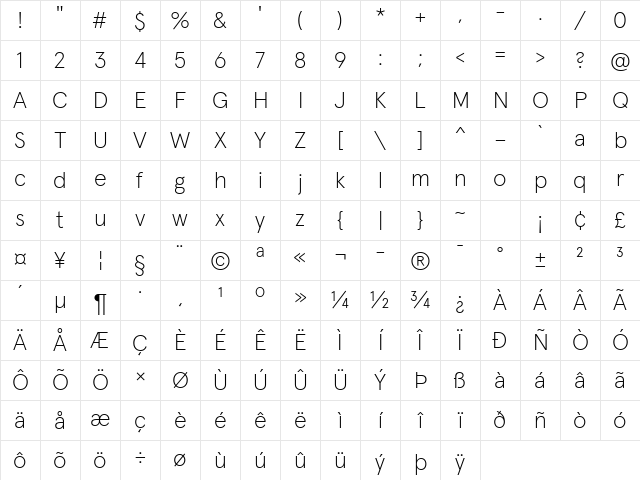
Apercu Pro ExtraLight
Style: ExtraLight
Foundry: Colophon Foundry
Designer: Colophon Foundry
Design Context for Apercu Pro
Apercu Pro is a composed and adaptable typeface that performs quietly and consistently across a wide range of design contexts. Its slender proportions lend an understated elegance to any composition.